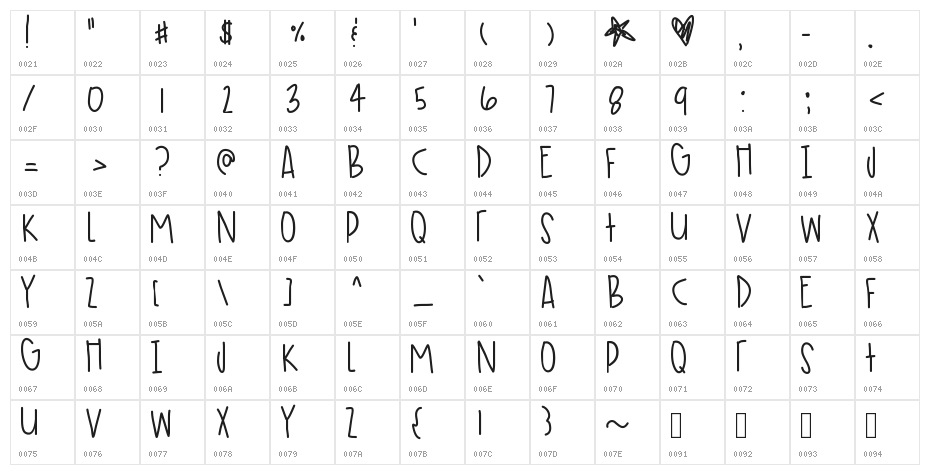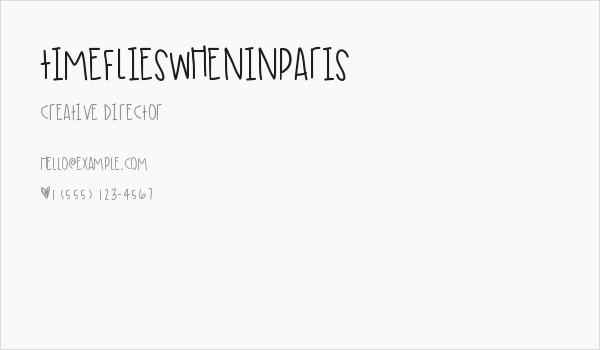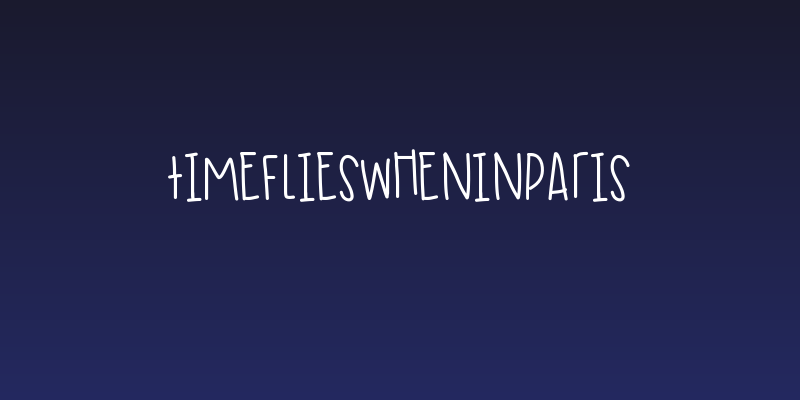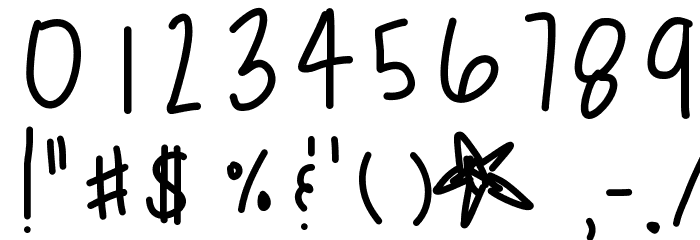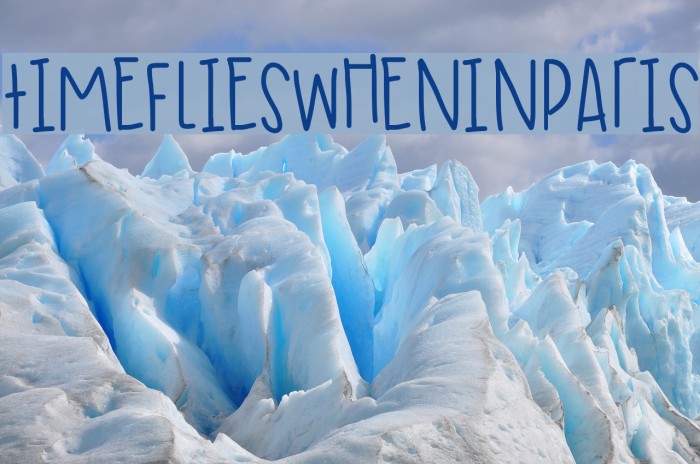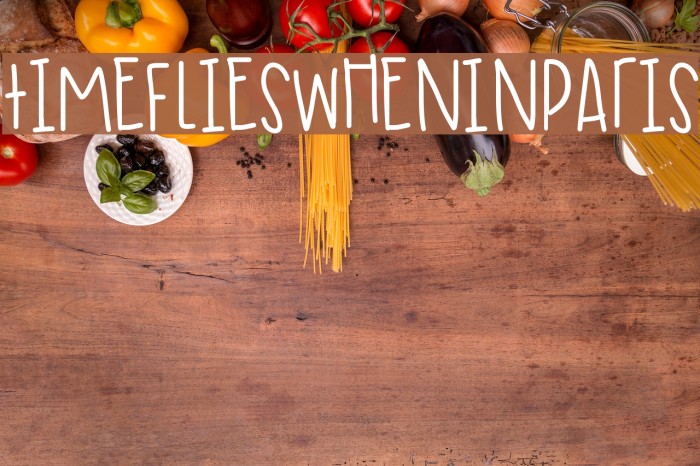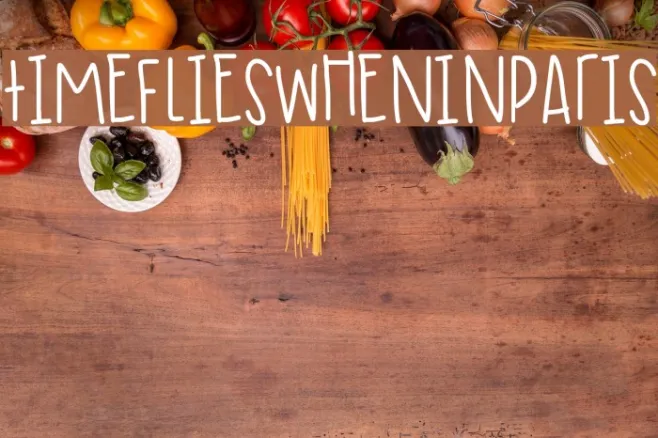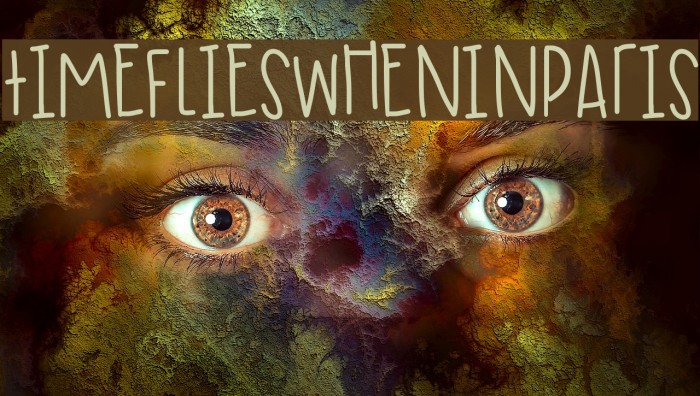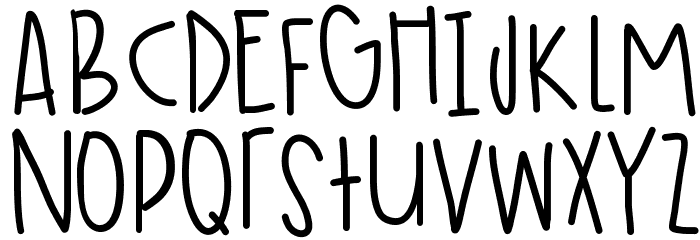
TimeFliesWhenInParis Font
TimeFliesWhenInParis Description
This playful and whimsical font features a handwritten style with tall, narrow characters. The letters are slightly irregular, adding a casual and friendly feel. The uppercase and lowercase characters maintain a consistent height, giving the font a uniform appearance. The numbers and special characters are designed to match the overall style, with a similar playful touch. The strokes are consistent in thickness, providing a balanced look without high contrast. This font is ideal for projects that require a personal, informal touch, such as greeting cards, children's books, or creative branding.
| Use Case | Greeting cards, Children's books, Creative branding |
| Proposed Projects | Greeting cards, children's books, creative branding, informal invitations. |